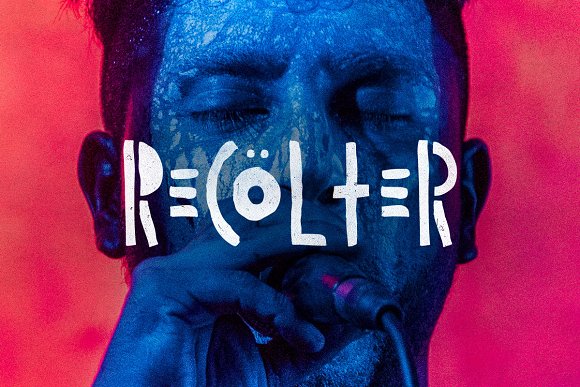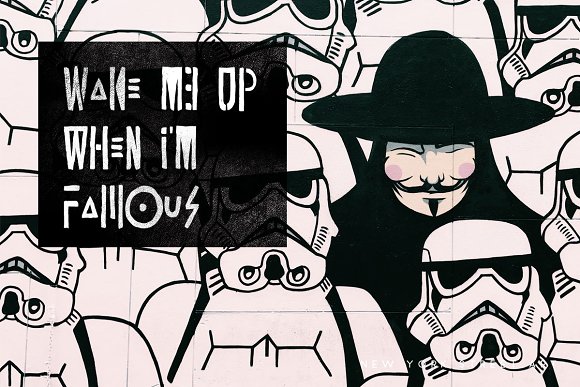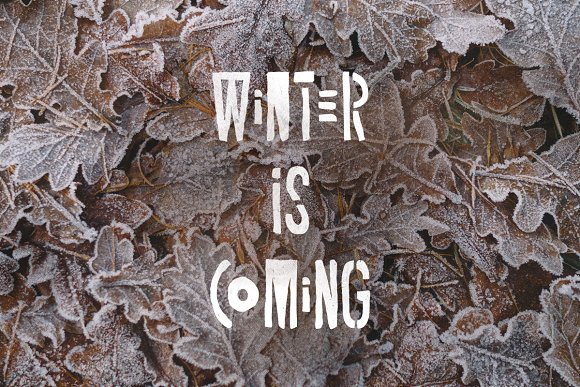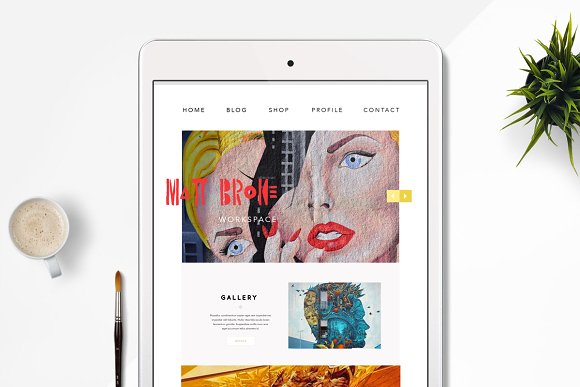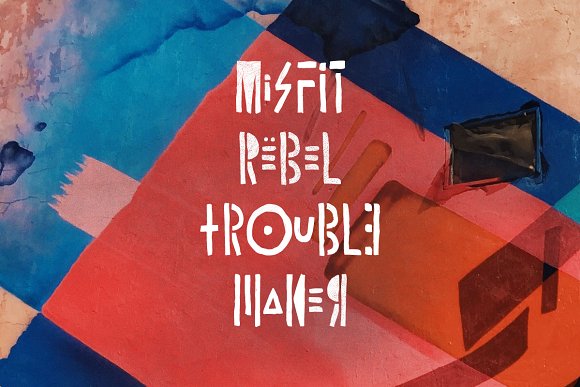
Recolter Display Font
Recolter is modern display font, every single letters have been carefully crafted. This font will perfect for many different project ex: quotes, blog header, poster, wedding, branding, logo, fashion, apparel, letter, invitation, stationery, etc.